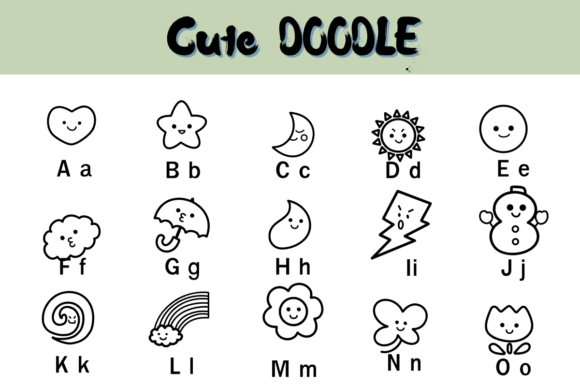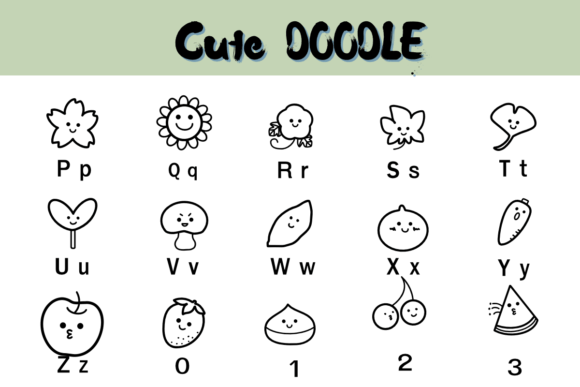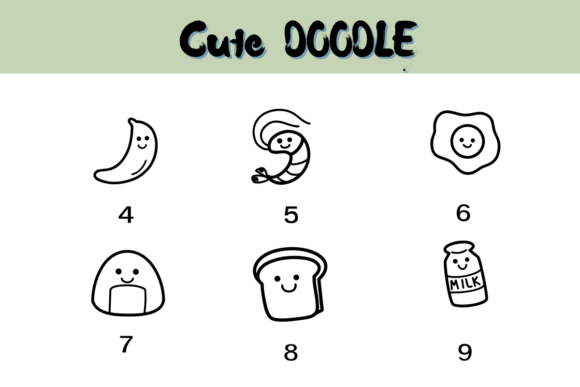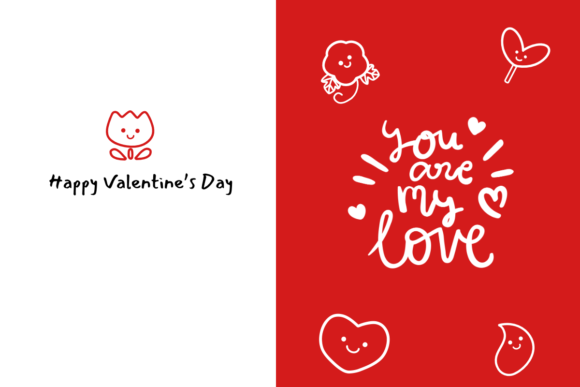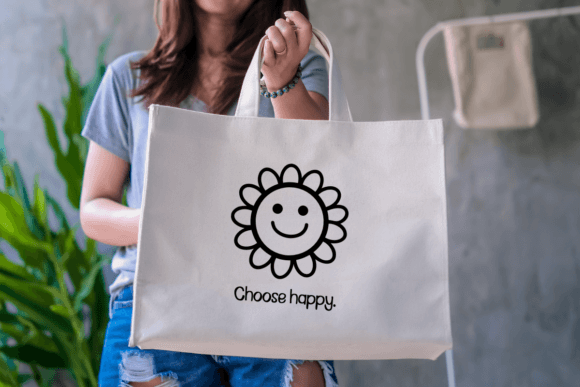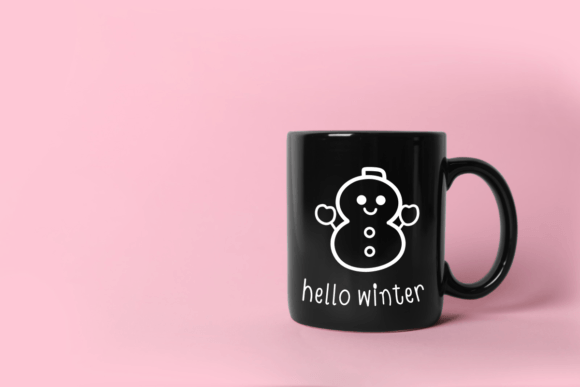
Cute Doodle Font: Adding a Touch of Whimsy to Your Designs
Are you looking for a way to add a playful and creative touch to your designs? Look no further than the Cute Doodle font, a delightful dingbats font filled with charming sketches and playful icons. This font is perfect for designers and crafters who want to infuse their projects with a sense of fun and whimsy.
What is Cute Doodle Font?
Cute Doodle is a unique and versatile font that offers a diverse collection of doodles, from adorable shapes to whimsical objects. With its lively and quirky style, this font is sure to bring a smile to your face and inspire your creativity. Whether you’re working on a graphic design project, a craft, or a digital illustration, Cute Doodle is the perfect addition to your toolkit.
Features of Cute Doodle Font
So, what makes Cute Doodle so special? Here are just a few of the features that set this font apart:
- Charming sketches and playful icons: Cute Doodle is filled with a wide range of delightful sketches and icons, from cute animals to whimsical objects.
- Diverse collection of doodles: With Cute Doodle, you’ll have access to a vast library of doodles, including shapes, objects, and icons.
- Lively and quirky style: This font has a unique and playful style that’s sure to add a touch of whimsy to your designs.
- Perfect for adding fun accents: Cute Doodle is ideal for adding fun and playful accents to your designs, from birthday cards to digital illustrations.
Uses for Cute Doodle Font
So, how can you use Cute Doodle in your designs? The possibilities are endless! Here are a few ideas to get you started:
- Graphic design projects: Add a playful touch to your brochures, flyers, and posters with Cute Doodle.
- Crafting: Use Cute Doodle to add a personal touch to your scrapbooking, card making, and other crafts.
- Digital illustrations: Bring your digital illustrations to life with the playful and whimsical style of Cute Doodle.
- Social media graphics: Add a fun and playful touch to your social media graphics, from Facebook posts to Instagram stories.
Tips for Using Cute Doodle Font
Here are a few tips for getting the most out of Cute Doodle:
- Experiment with different sizes and colors: Don’t be afraid to try out different sizes and colors with Cute Doodle to add visual interest to your designs.
- Mix and match doodles: Combine different doodles to create unique and playful designs.
- Use it sparingly: While Cute Doodle is a fun and playful font, it’s best used sparingly to avoid overwhelming your design.
In conclusion, Cute Doodle is a delightful dingbats font that’s perfect for adding a touch of whimsy and creativity to your designs. With its diverse collection of charming sketches and playful icons, this font is sure to inspire your creativity and bring a smile to your face. Whether you’re a designer, crafter, or digital artist, Cute Doodle is a must-have addition to your toolkit.
Get Creative with Cute Doodle Font